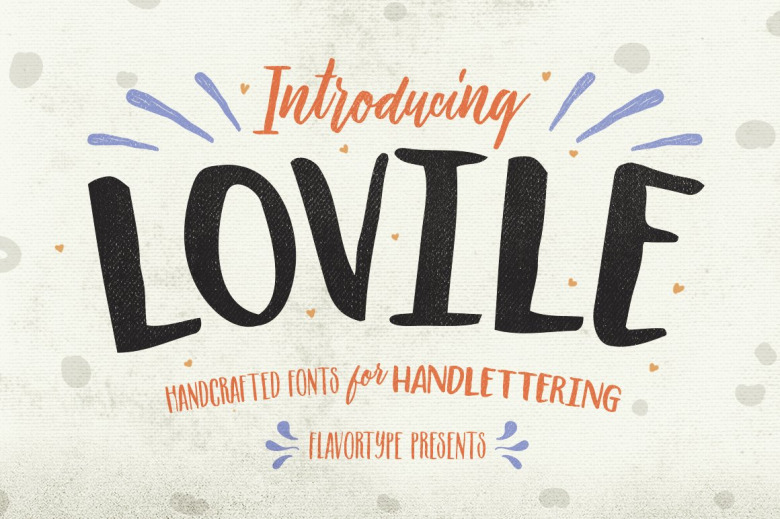
Lovile Type
LOVILE is special handcrafted fonts with based on lettering type ! Comes with triple font combination Bold, Condensed and Script, that will makes perfect choice for an hand lettered natural style project. That was an easy to mix and match with this fonts, this fonts bring an affection to design.